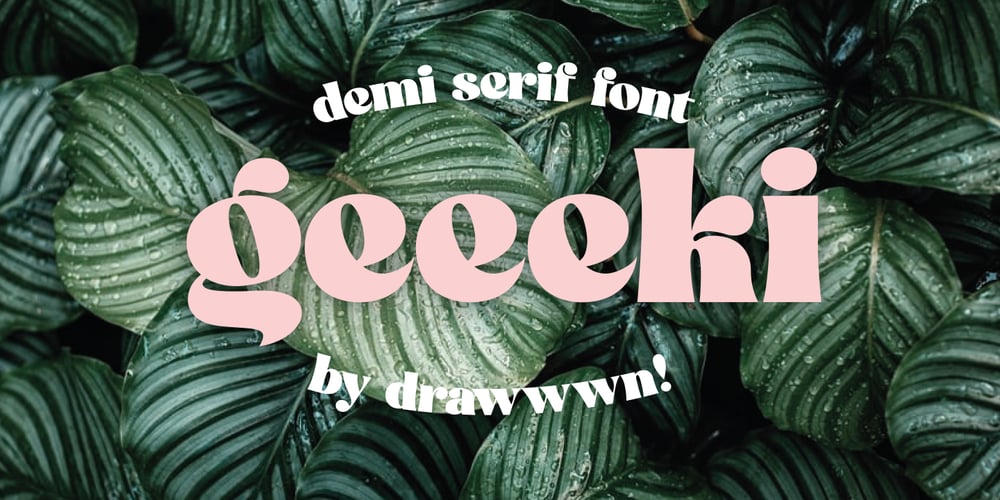
Geeeki Font Family was designed by Ryan Thomas and published by Drawwwn. Geeeki contains 1 styles and family package options. Geeeki is a playful semi serif font, it’s cute yet nerdy, stylish but dorky. Bold and chunky, it’s a unique headline grabber, so it’s the perfect match for style magazines, fashion brands and whimsical websites. Find your inner super-geek!